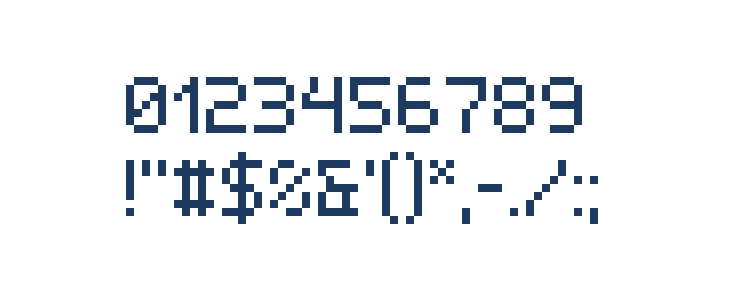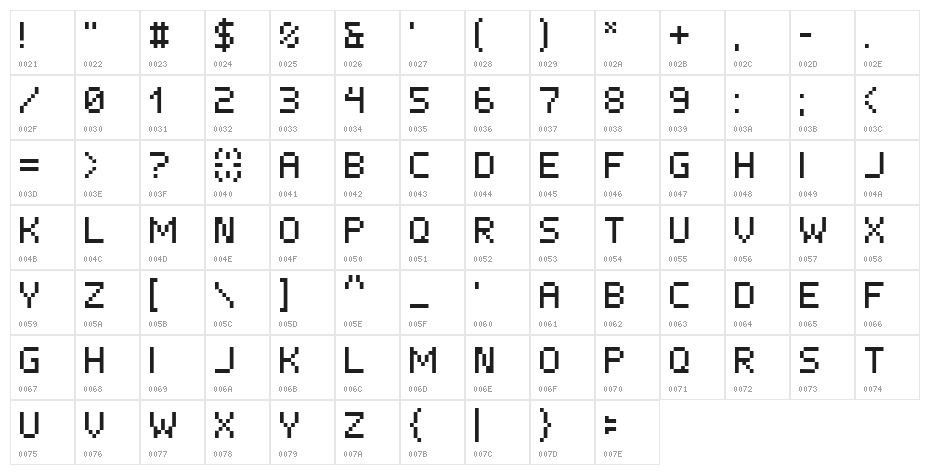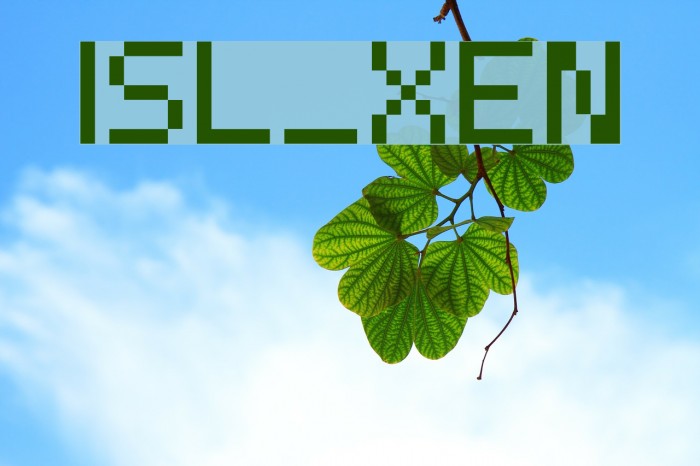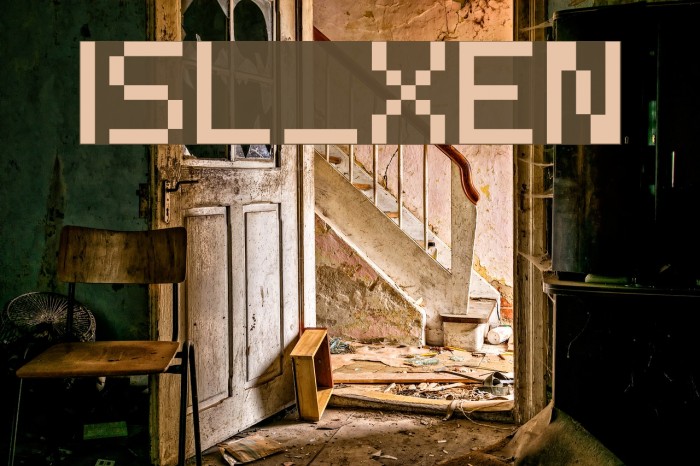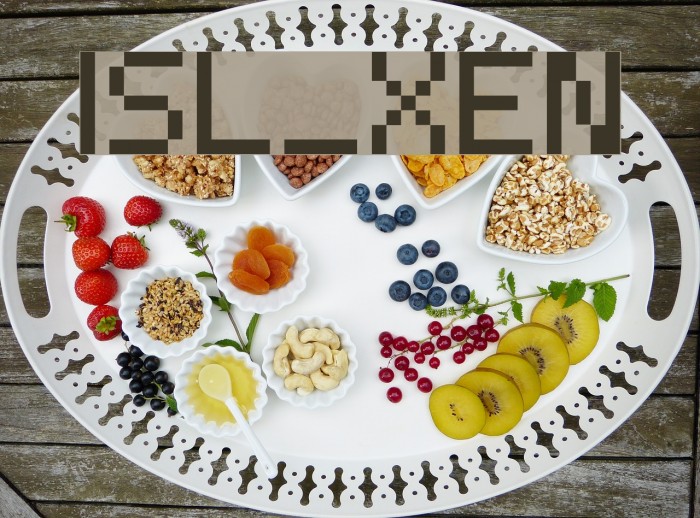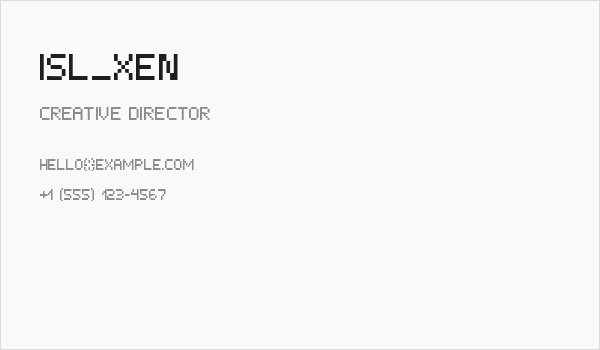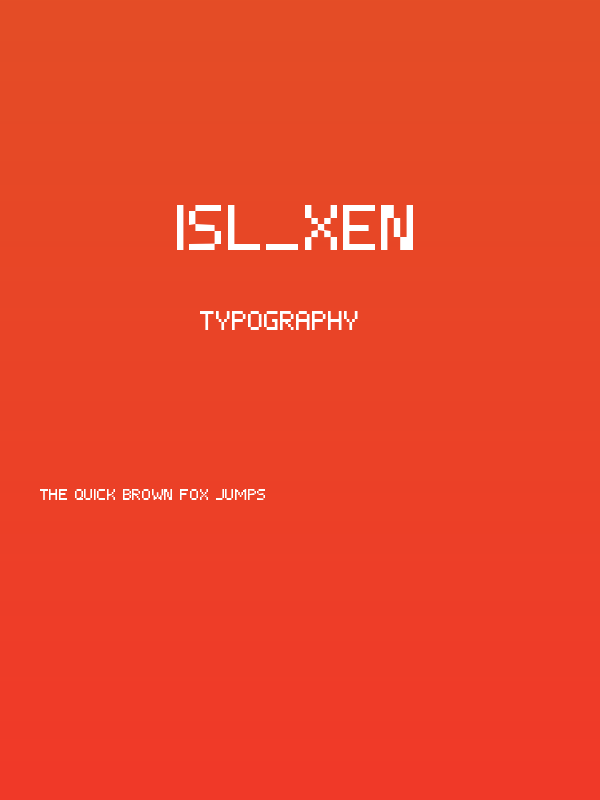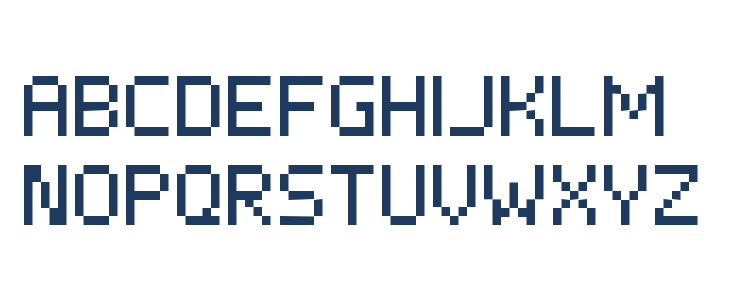
ISL_XEN Font
ISL_XEN Description
This font features a pixelated, blocky design reminiscent of early digital displays and video games. Each character is constructed with a grid-like precision, giving it a distinctly retro and technological feel. The uniformity in the height and width of the characters contributes to its monospaced appearance, making it ideal for coding and digital interfaces. The font's geometric structure ensures clarity and readability, even at smaller sizes. Its nostalgic aesthetic is perfect for projects that aim to evoke a sense of vintage computing or retro gaming culture.
| Use Case | Digital interfaces, Coding, Retro games |
| Proposed Projects | Ideal for retro video games, coding interfaces, digital art projects, and any design requiring a vintage tech feel. |